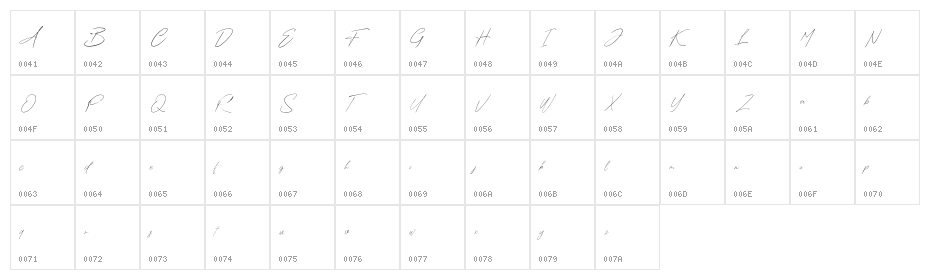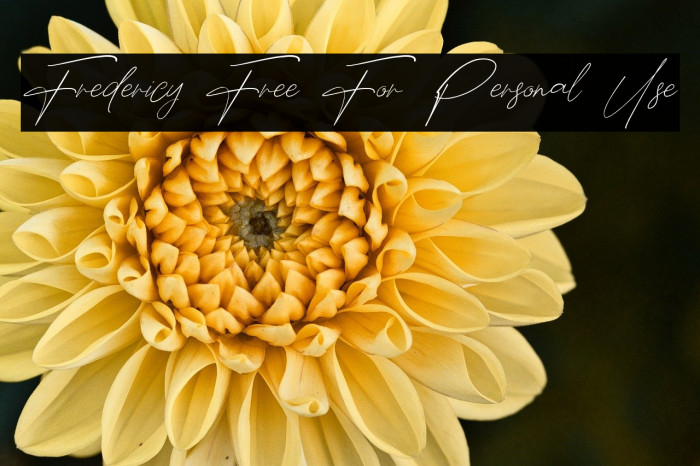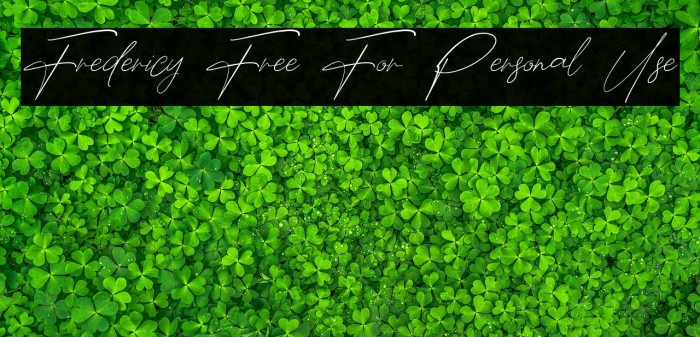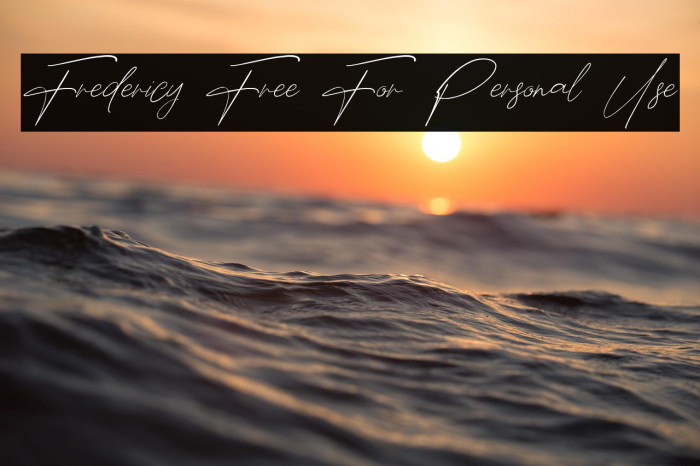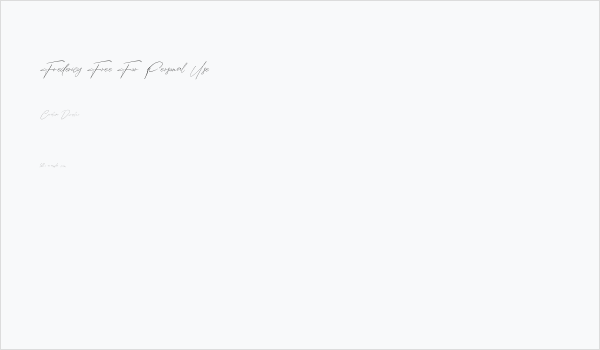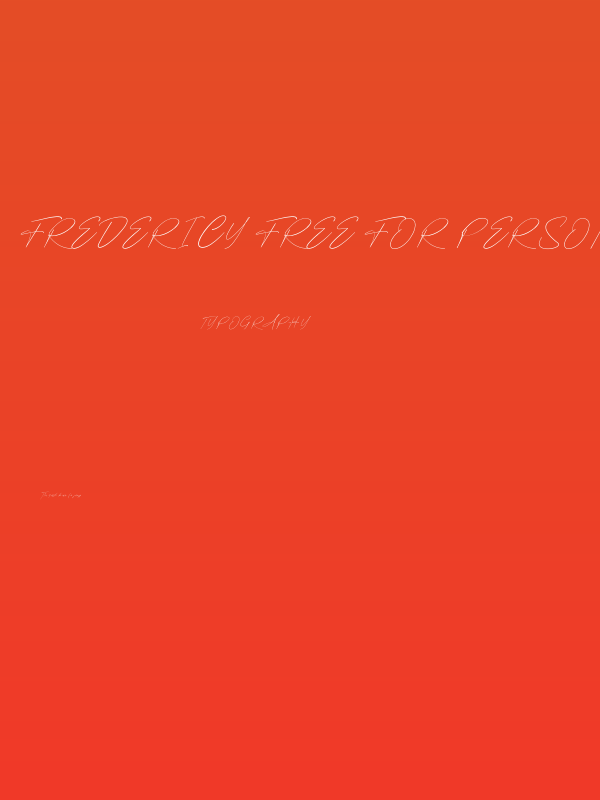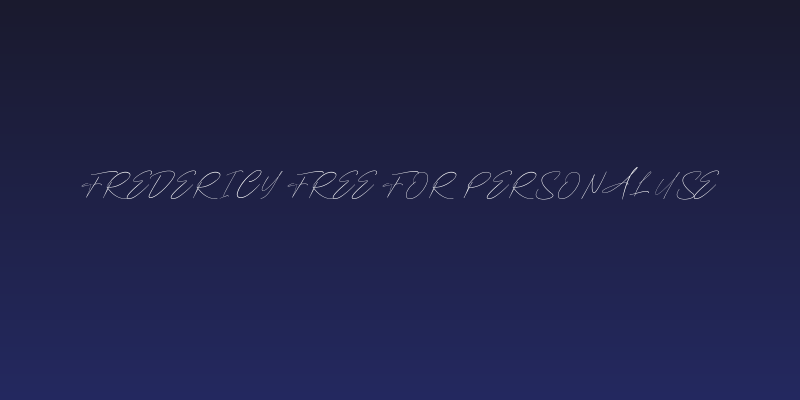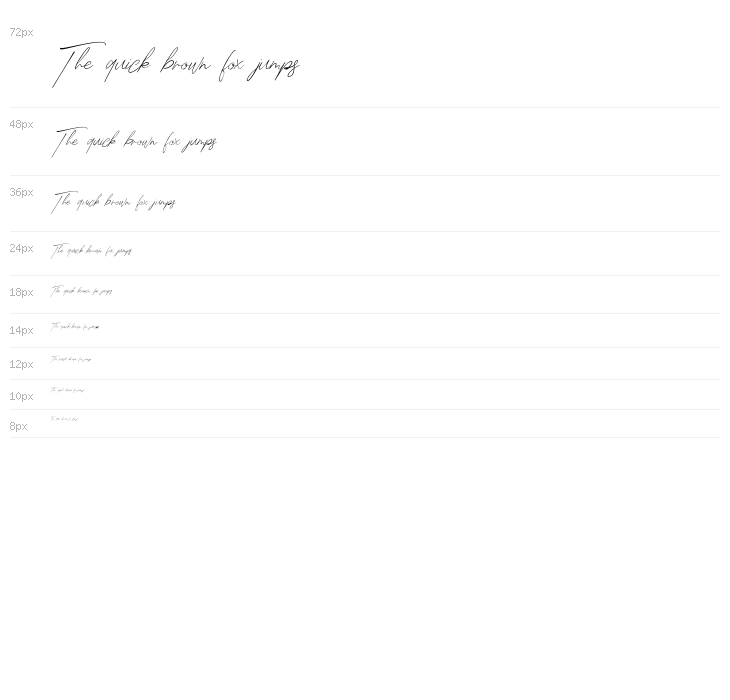
Fredericy Free For Personal Use Font
Fredericy Free For Personal Use Description
This font exudes elegance and sophistication with its fluid, cursive style. The letters are interconnected, creating a seamless flow that mimics natural handwriting. The uppercase characters are tall and slightly slanted, giving a sense of movement and grace. The lowercase letters maintain a consistent style, with delicate loops and curves that enhance the handwritten aesthetic. The overall appearance is refined and artistic, making it ideal for projects that require a personal touch.
| Use Case | Logos, Invitations, Personal branding |
| Proposed Projects | Ideal for wedding invitations, personal branding, greeting cards, and elegant stationery. |